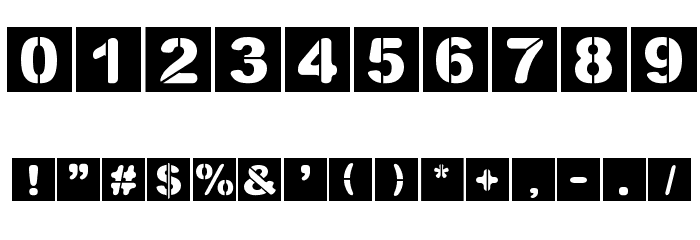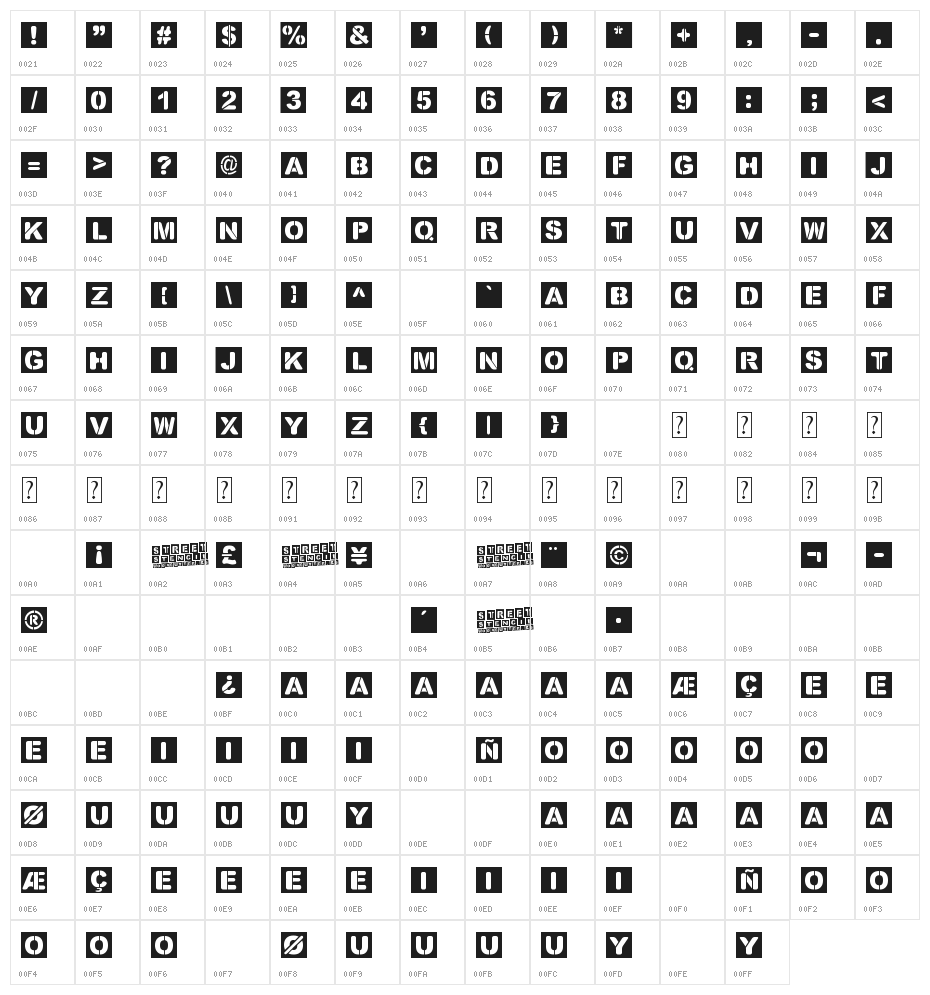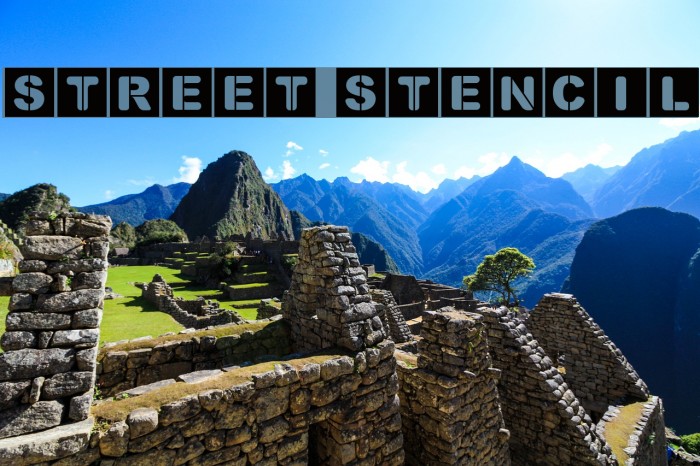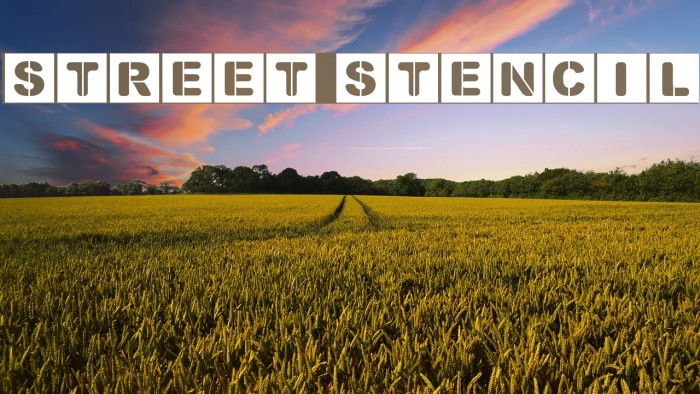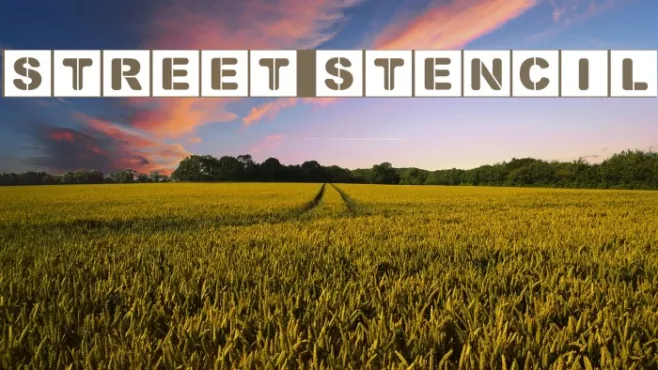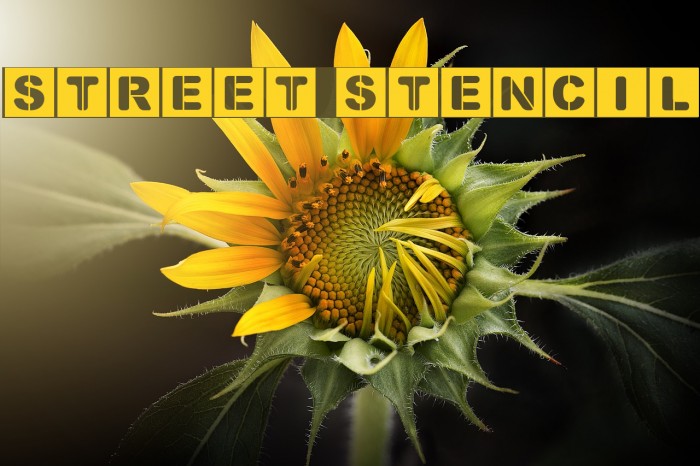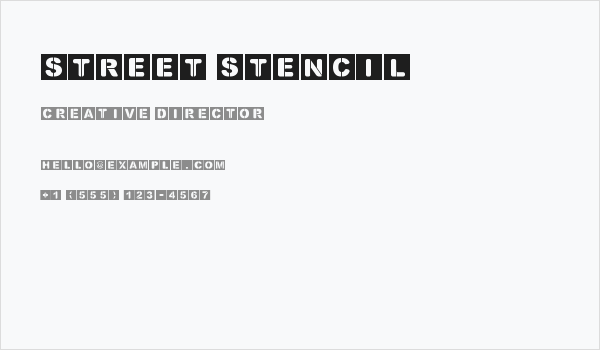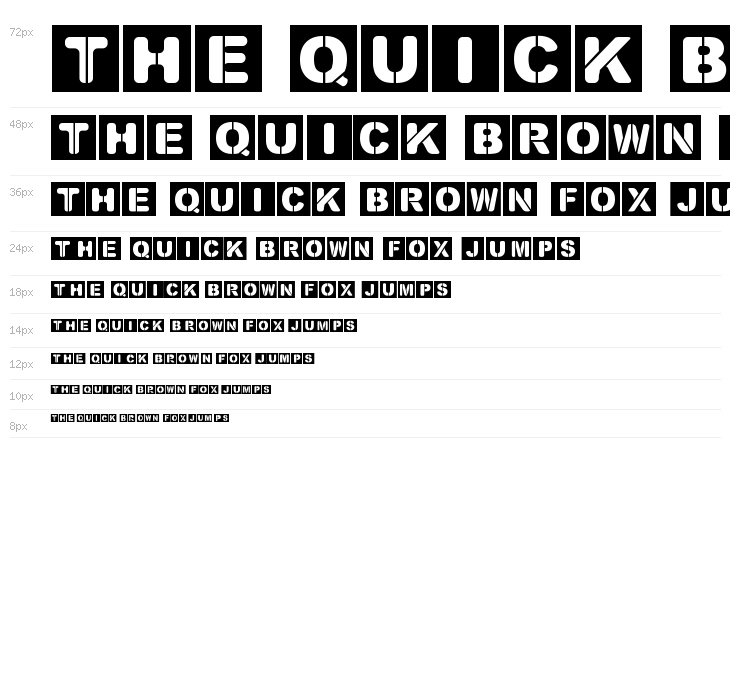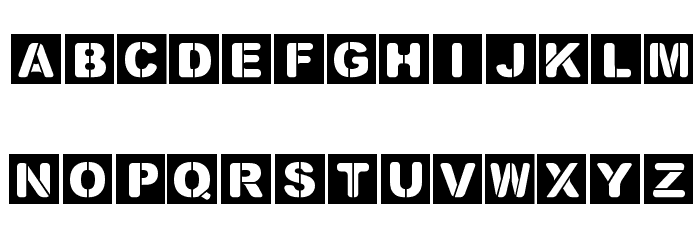
Street Stencil Font
Street Stencil Description
This font features a bold, stencil-inspired design with strong, geometric shapes. Each character is enclosed in a square, giving it a uniform and structured appearance. The cut-out style is reminiscent of street art and industrial signage, making it highly legible and impactful. The uppercase letters are consistent in height and width, while the numbers and special characters maintain the same bold aesthetic. This font is ideal for creating a rugged, urban feel in design projects.
| Overall Style | Urban, Industrial |
| Proposed Projects | Perfect for street art projects, industrial-themed designs, signage, and posters. |